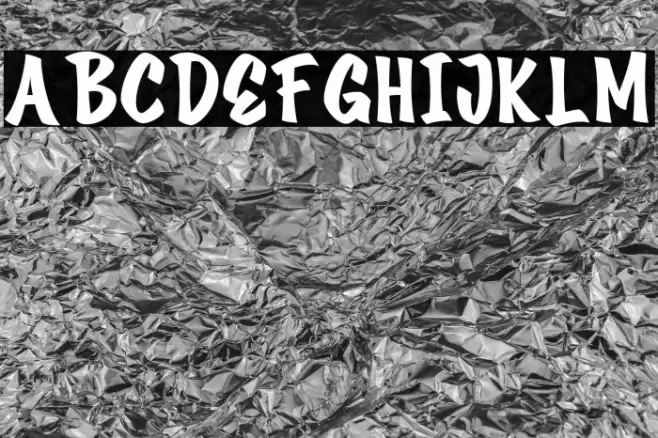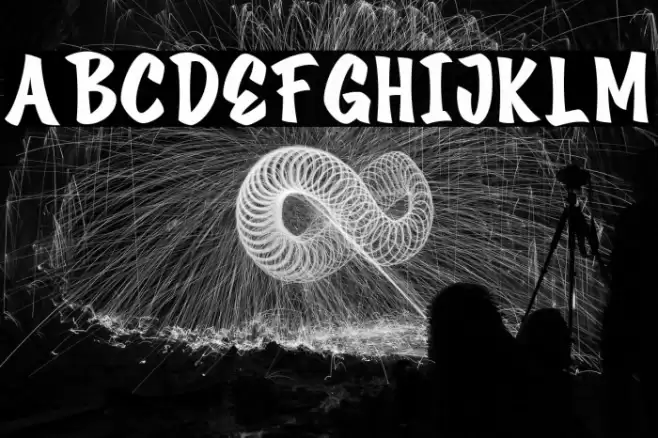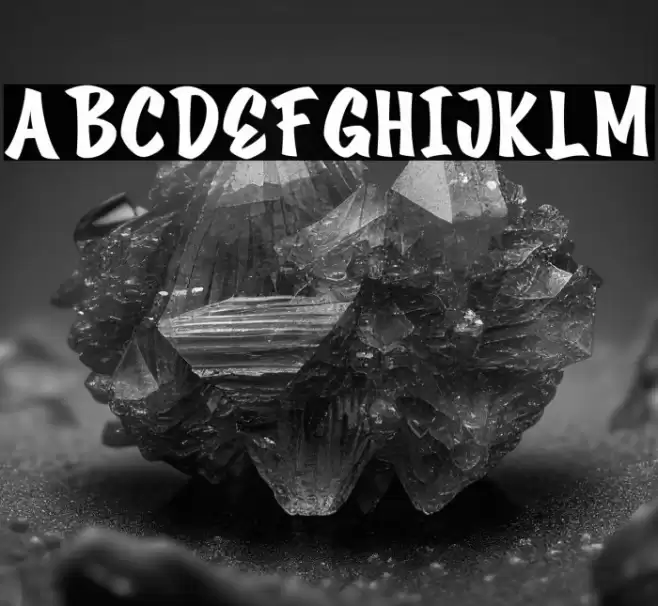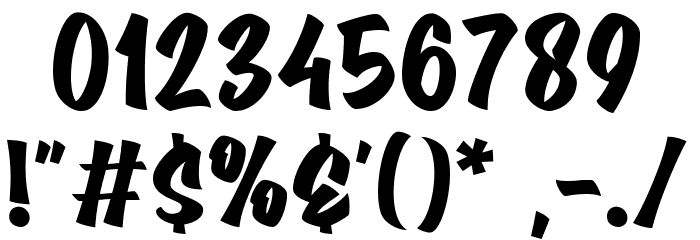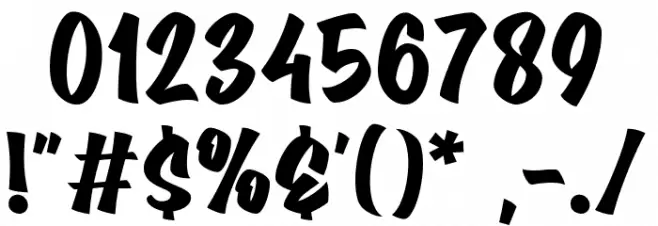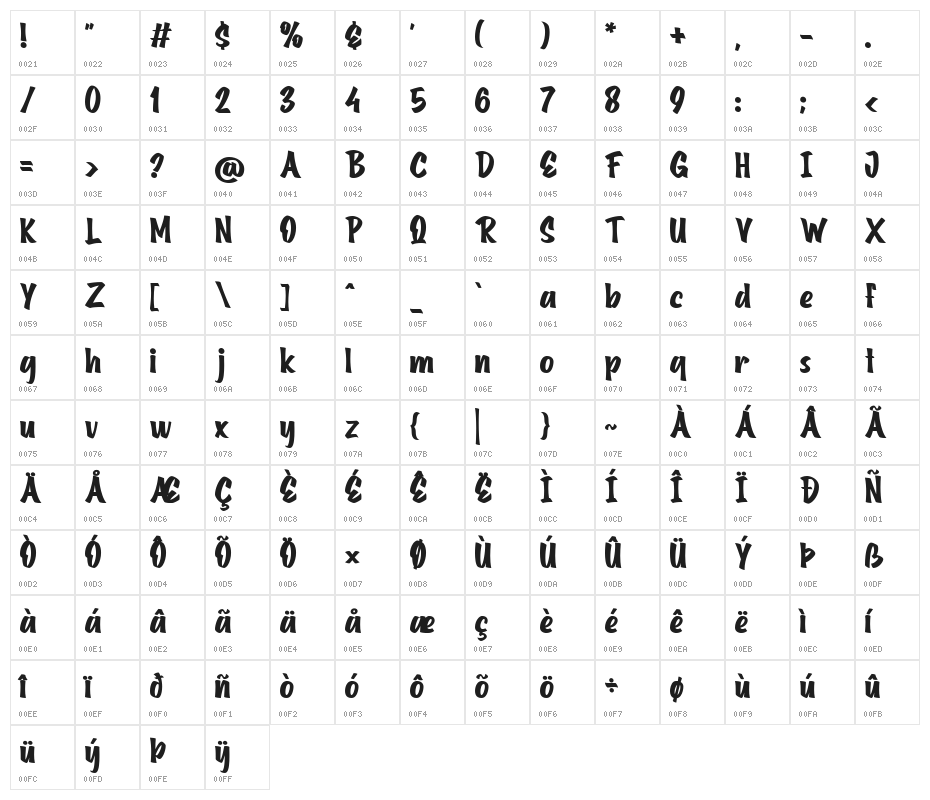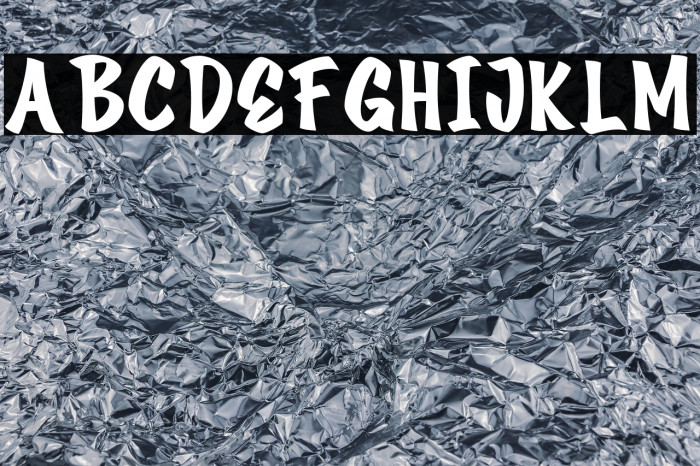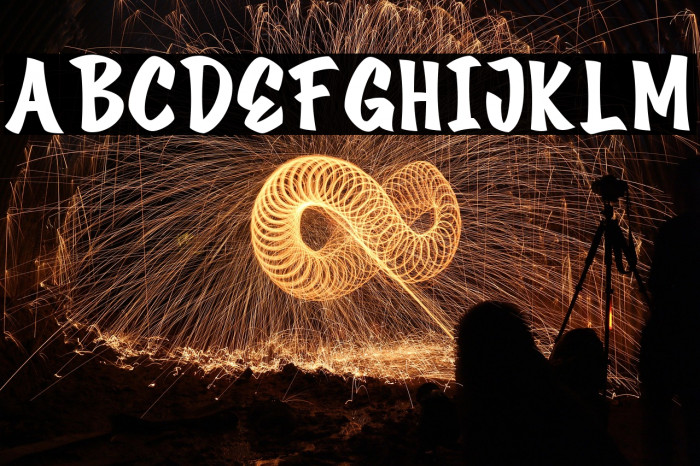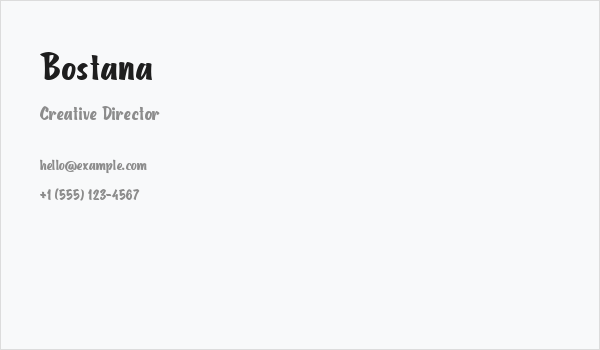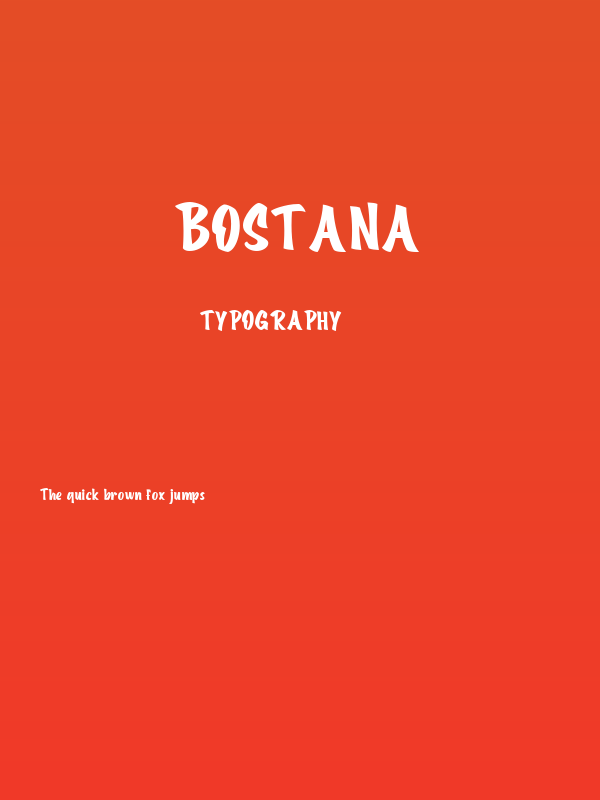
Bostana Font
Bostana Description
This font exhibits a bold and playful style with a hand-drawn appearance. The characters are slightly irregular, adding a whimsical and dynamic feel. The uppercase letters are robust and commanding, while the lowercase letters maintain a consistent flow with a touch of casual flair. The numbers are equally bold, ensuring visibility and impact. Special characters are creatively styled, complementing the overall aesthetic. The font's energetic and informal nature makes it suitable for projects that require a lively and engaging visual presence.
A bold, playful font with a hand-drawn, whimsical style from Uncategorized fonts.
- Font: Bostana
- Proposed Projects: Ideal for children's books, playful branding, posters, and creative social media graphics.
- Overall Style: Playful, Hand-drawn
- Use Case: Headlines, Posters, Branding